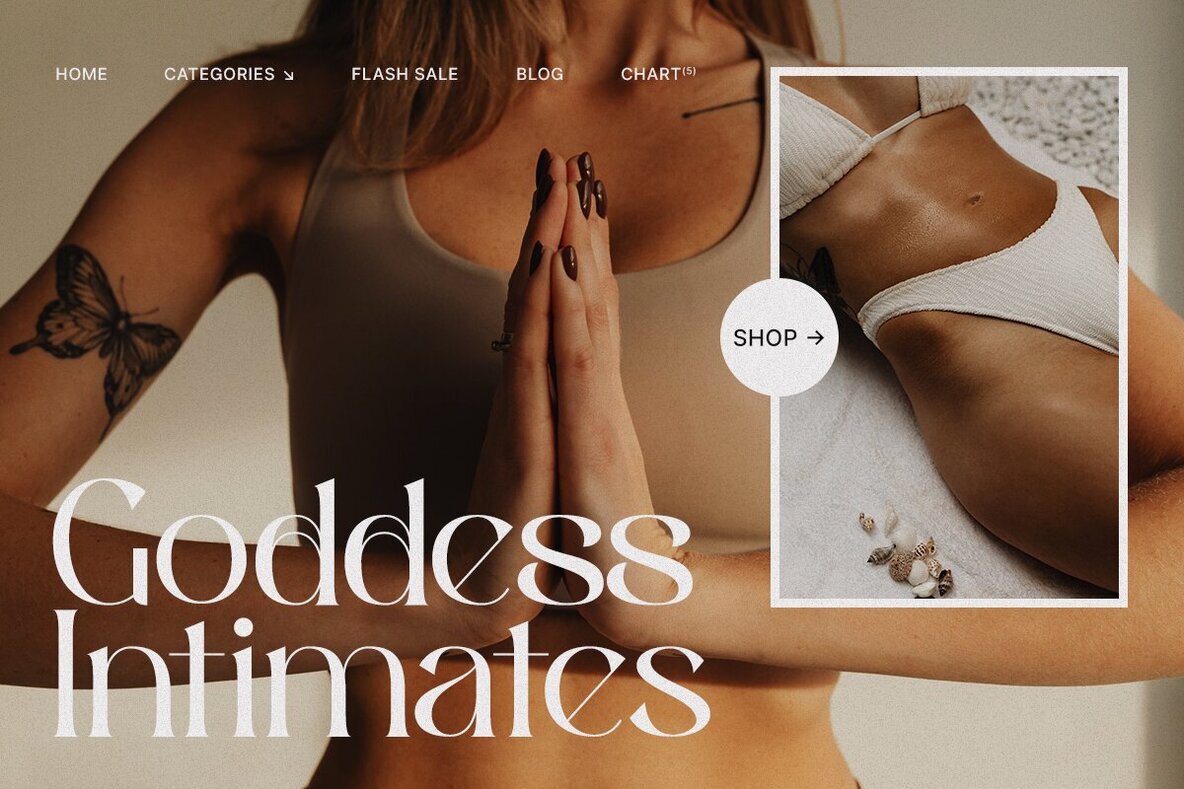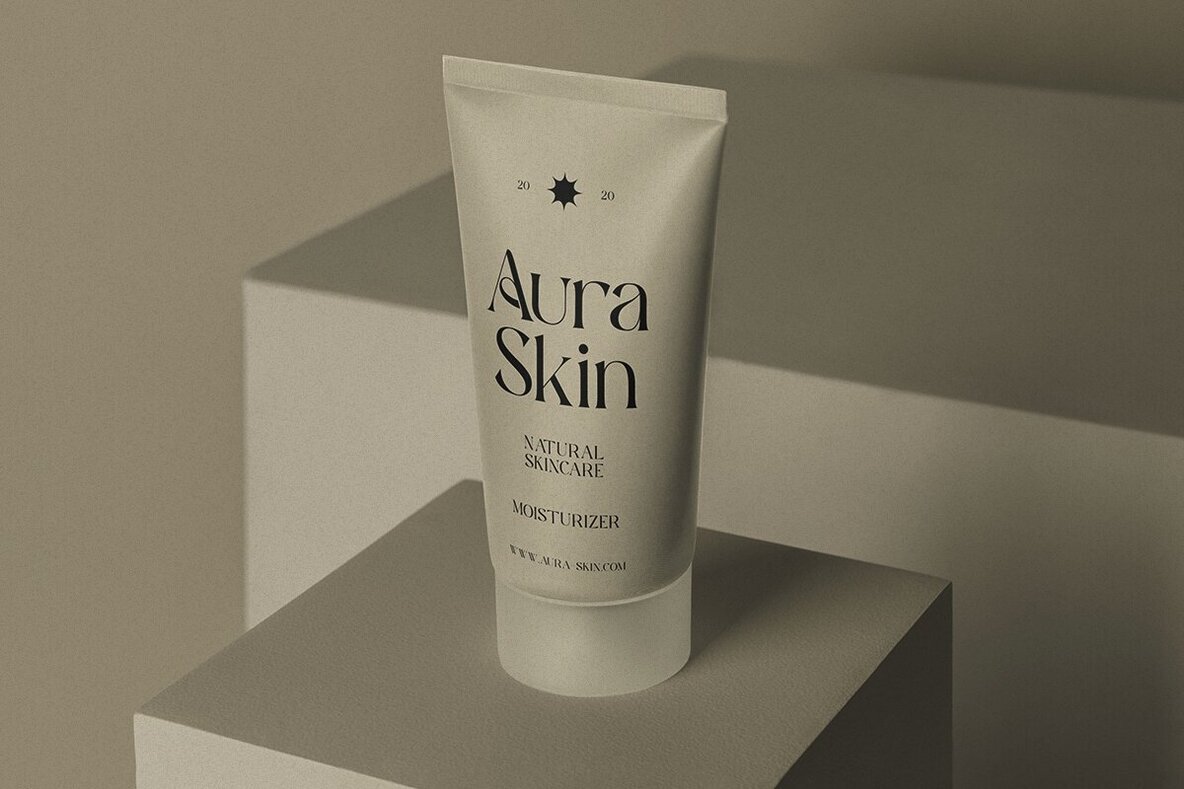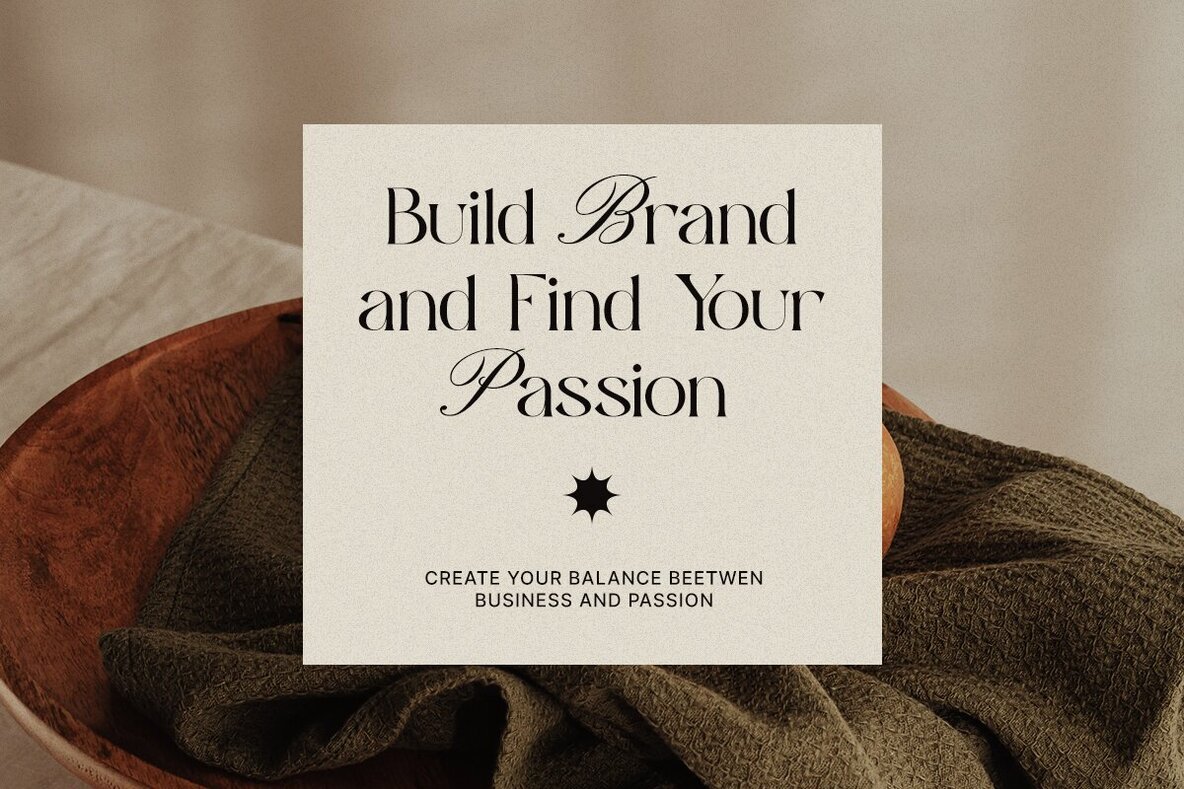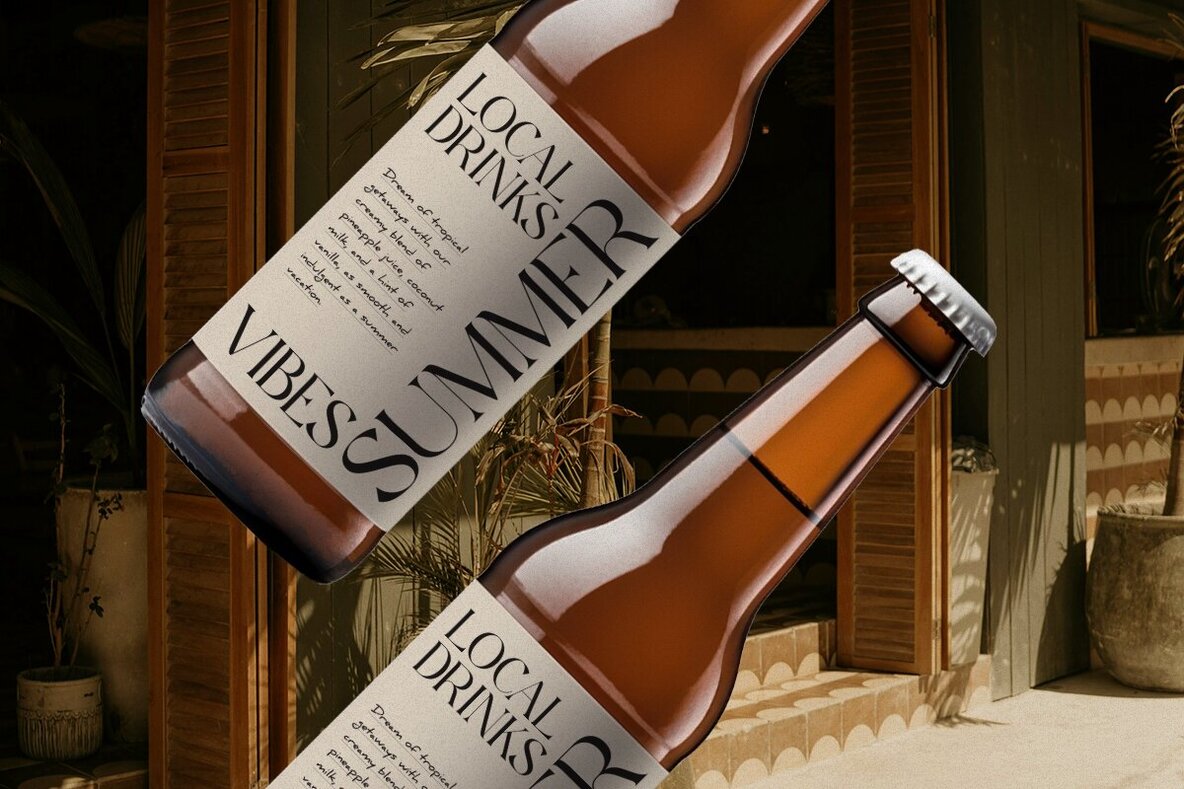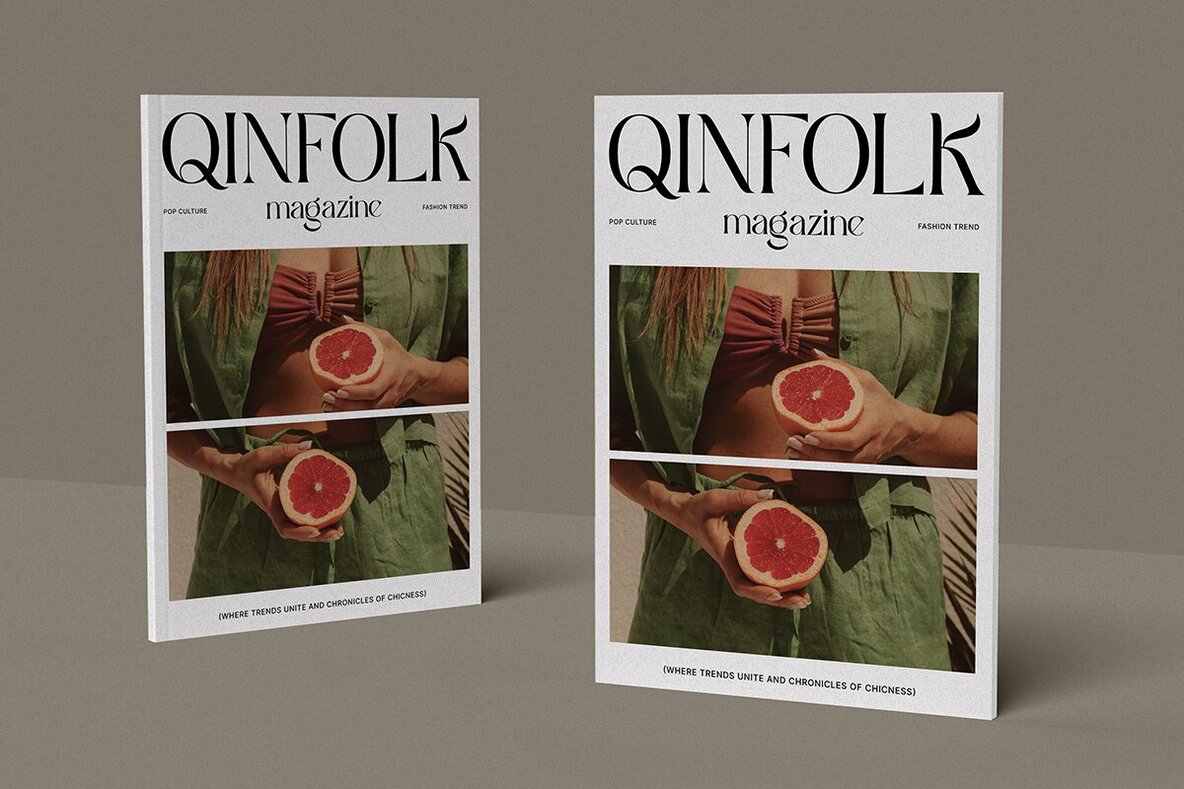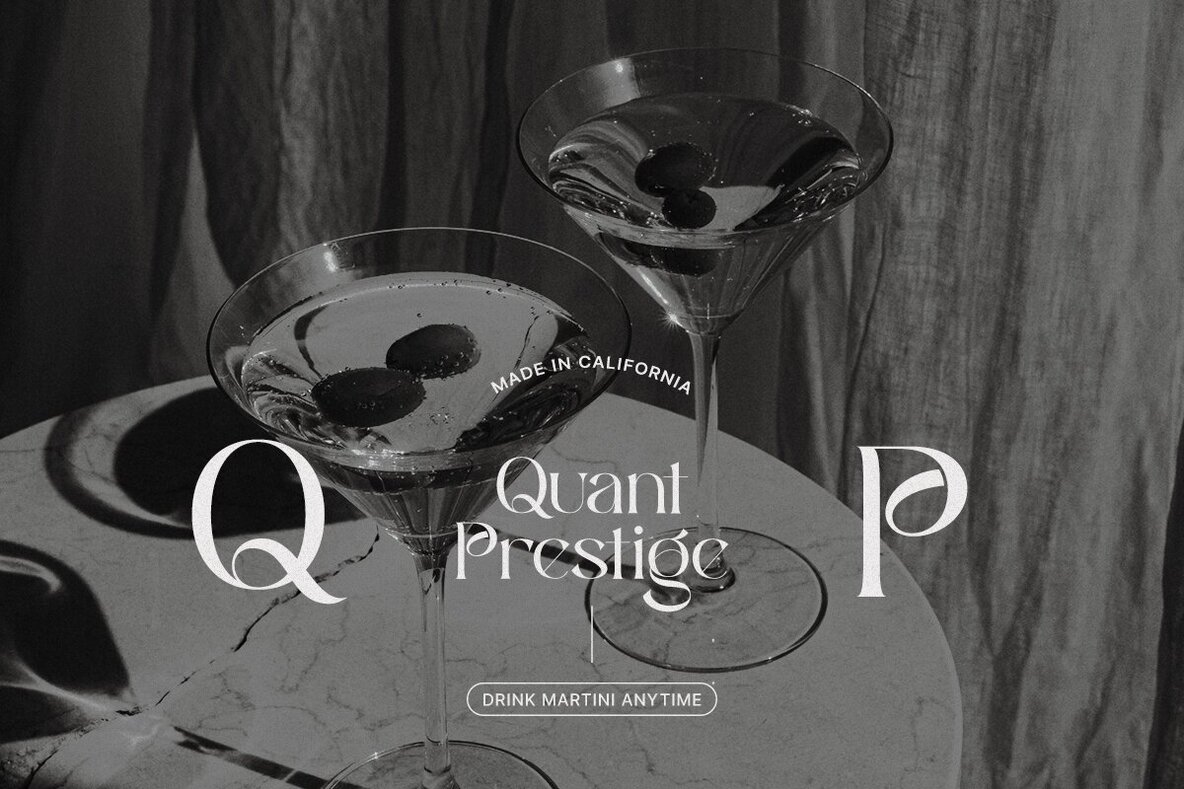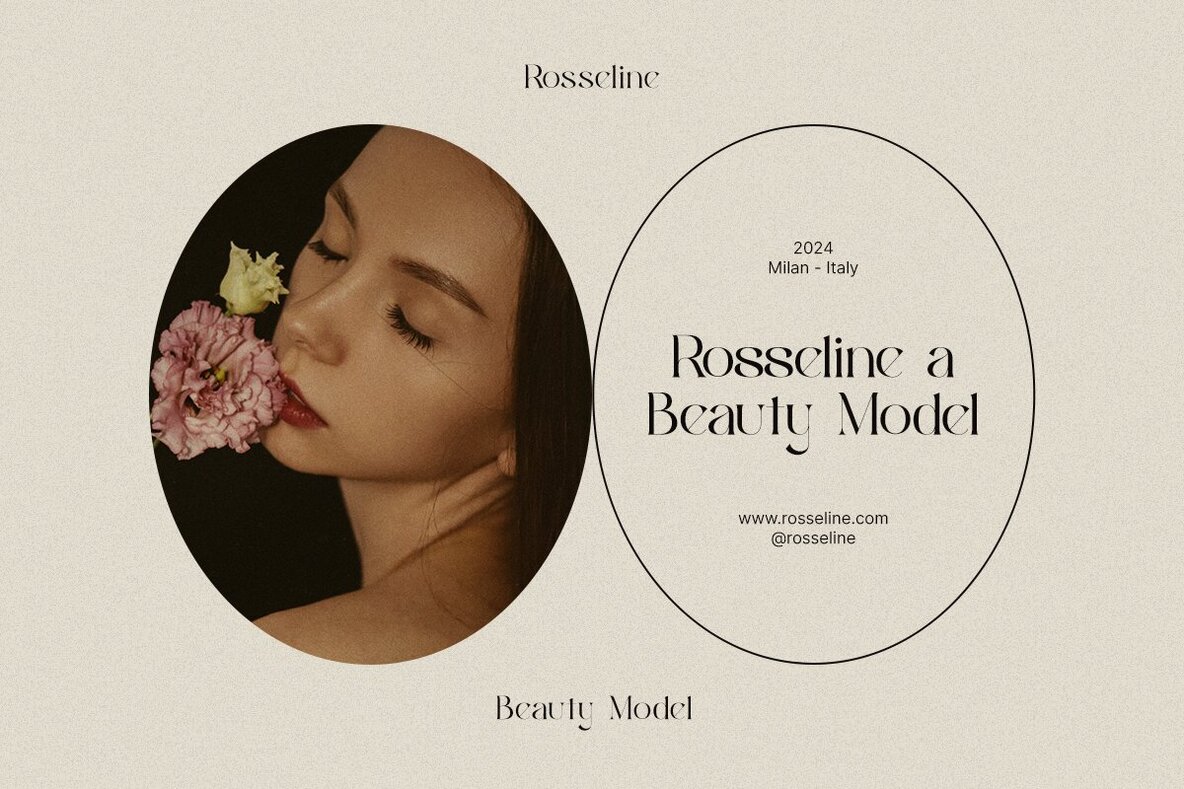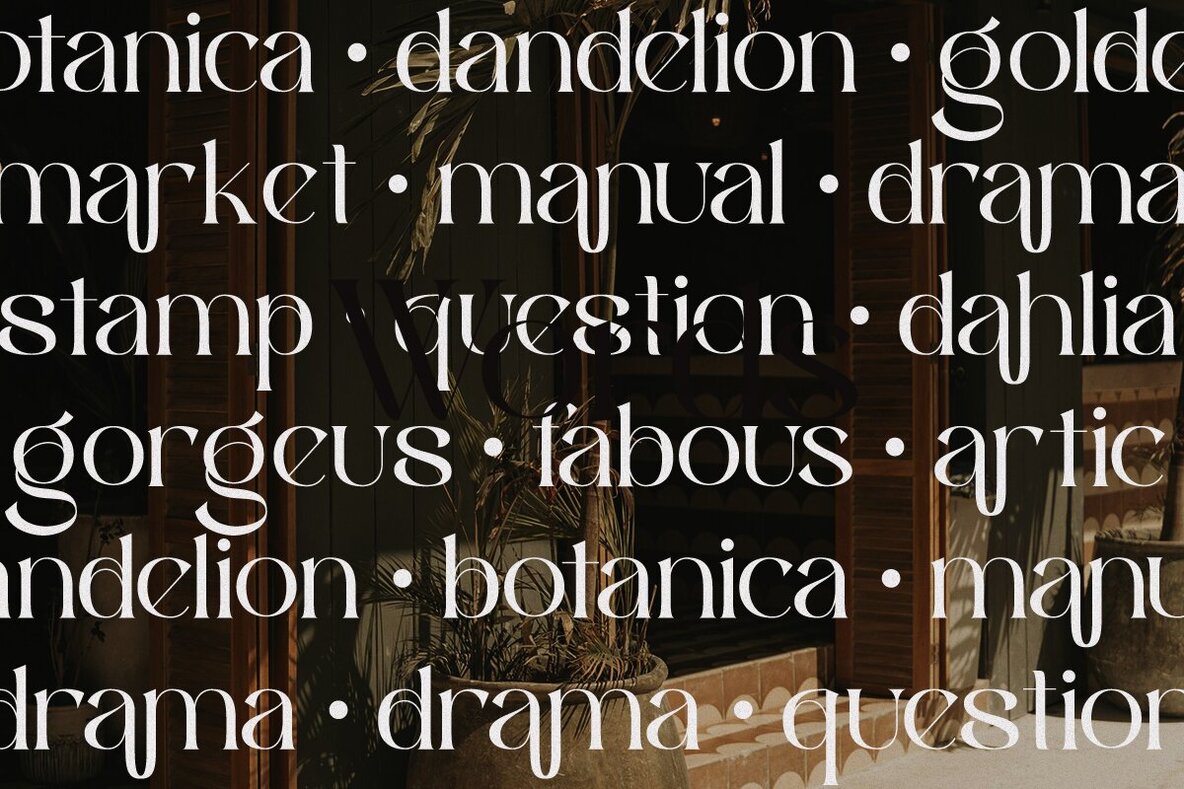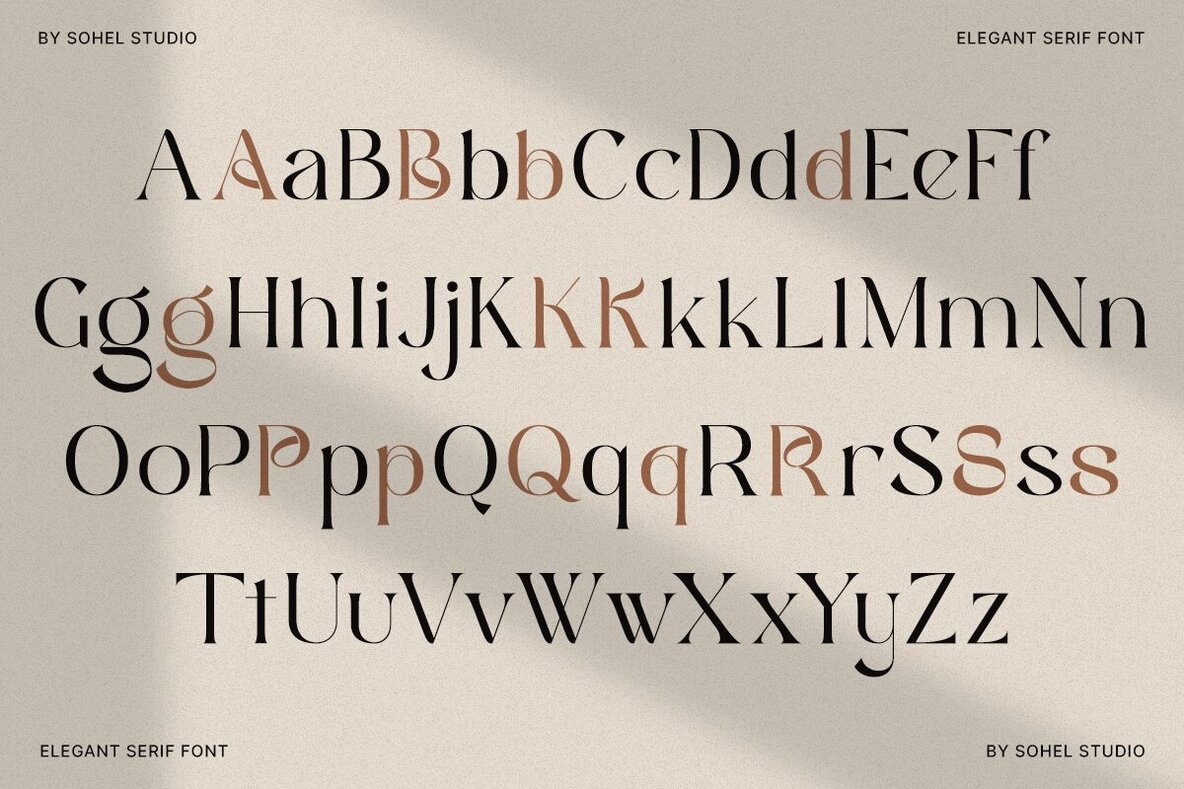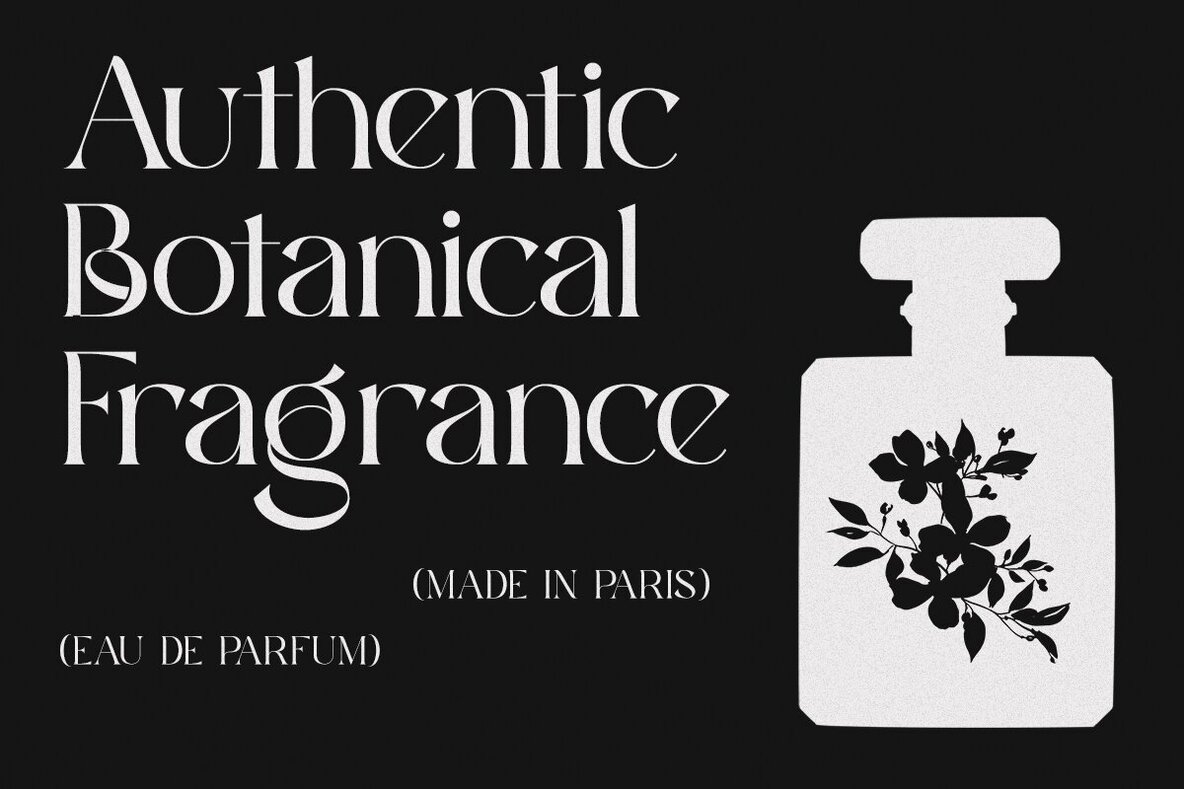
Soft Quota Font
Soft Quota Regular
Soft Quota is an elegant serif font that seamlessly combines modern and classic elements, presenting bold yet smooth letterforms. Its stylistic ligatures and alternates infuse a unique flair into any design. Ideal for a variety of uses—such as branding, logos, editorials, wedding invitations, and luxury packaging—Soft Quota supports multiple languages, offering a professional and exclusive aesthetic. The font's timeless serif style ensures sophistication in every application, while its unique alternates allow for creative flexibility and personalization.
Its versatility extends to various platforms like Canva and Cricut, making it accessible for both professional and personal projects. The full character set includes uppercase, lowercase, numerals, punctuation, and symbols, along with additional decorative glyphs to enhance designs further. Multilingual support is included to cater to a wide range of projects. Incorporate Soft Quota into your designs to add a touch of sophistication and ensure high-end results.